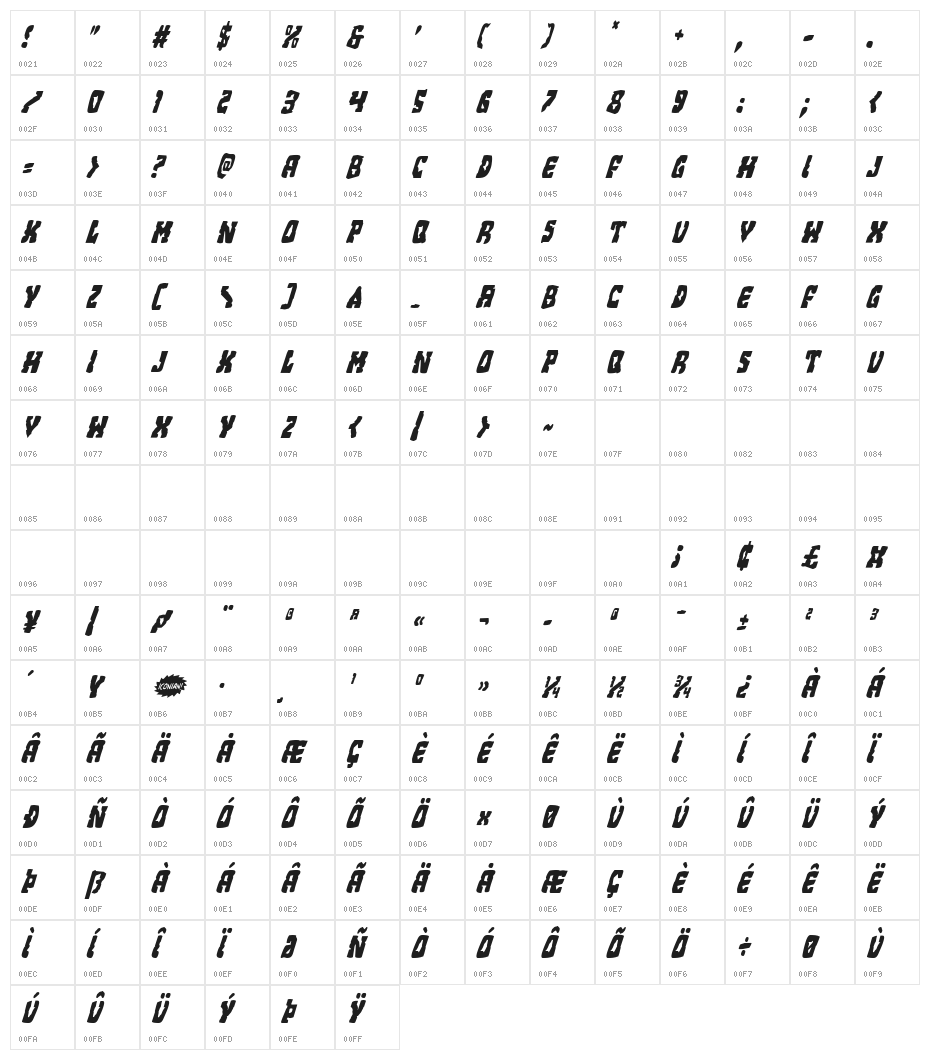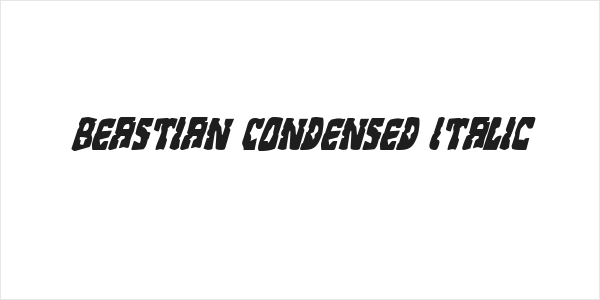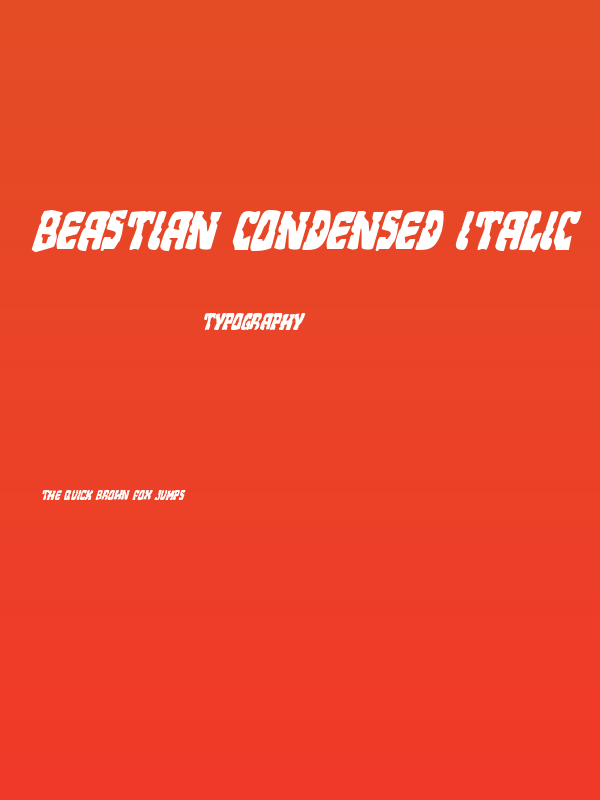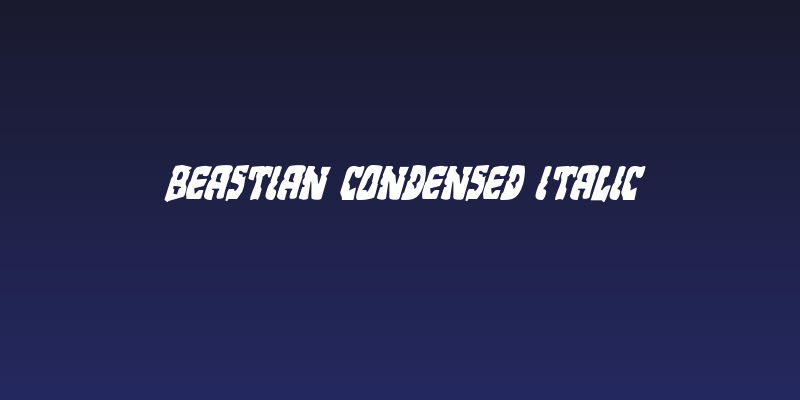
Beastian Condensed Italic Font
Beastian Condensed Italic Description
This font features a bold and dynamic style with a condensed and italicized form. The characters are thick and robust, giving a strong visual impact. The strokes are angular and sharp, creating a sense of movement and energy. The uppercase and lowercase letters maintain a consistent style, with a slight slant that enhances the italic effect. The numbers and special characters are equally bold, ensuring uniformity across all glyphs. This font's design is ideal for making a statement, with its heavy weight and condensed width contributing to its powerful presence.